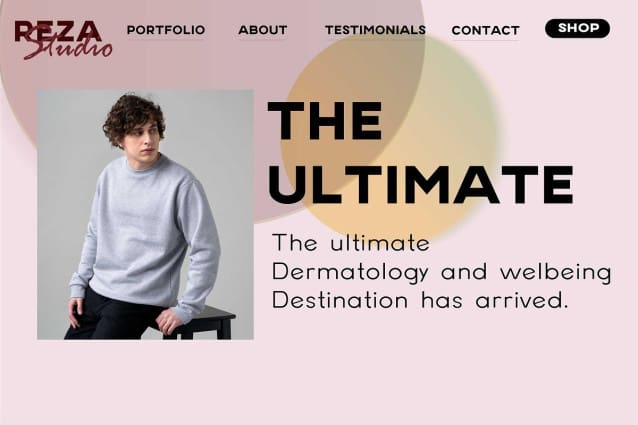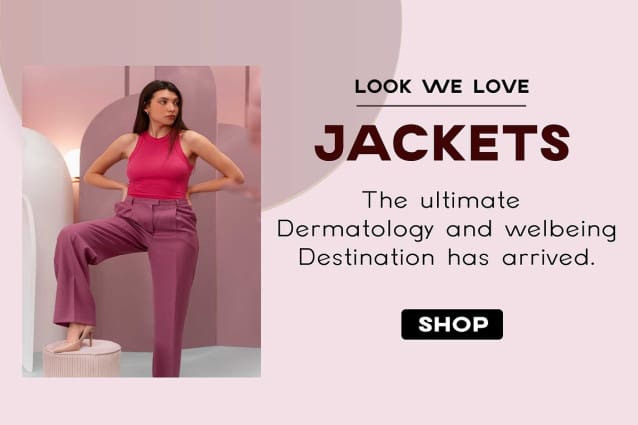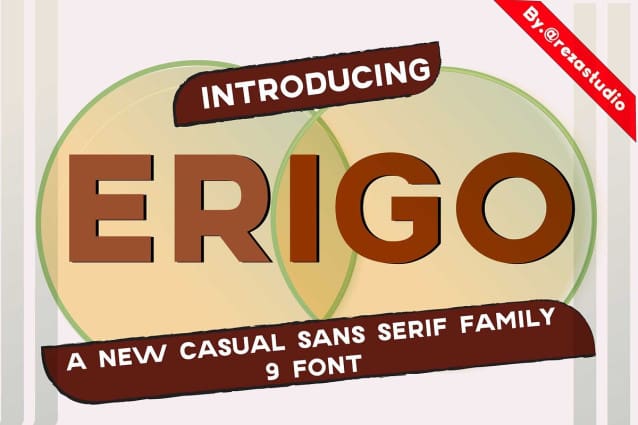
Erigo Font Family
Erigo Font Family is a testament to sleek modernity and timeless elegance. Sans-serif fonts, with their clean lines and minimalist charm, offer a versatile canvas for creative expression across a variety of design mediums. From conveying corporate professionalism to imparting clarity and readability to digital interfaces, erigo fonts emphasize their adaptability and enduring appeal in attracting attention. attention and convey messages effectively in today’s visually driven landscape.